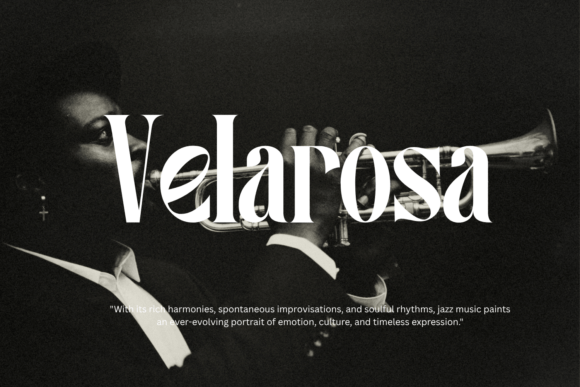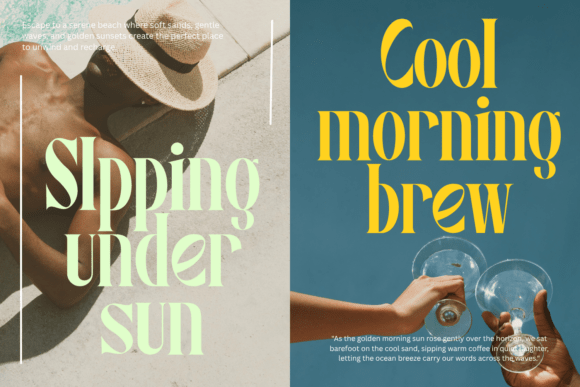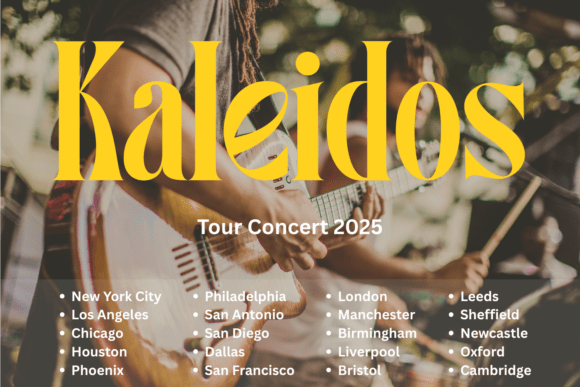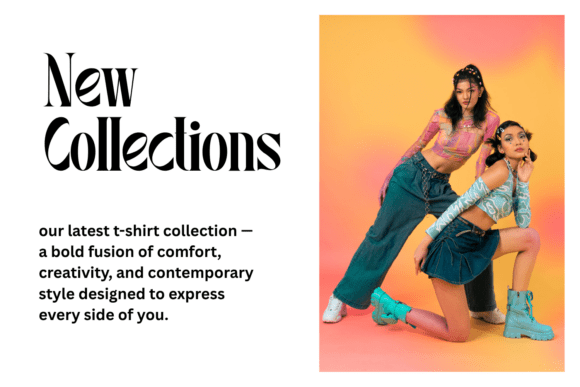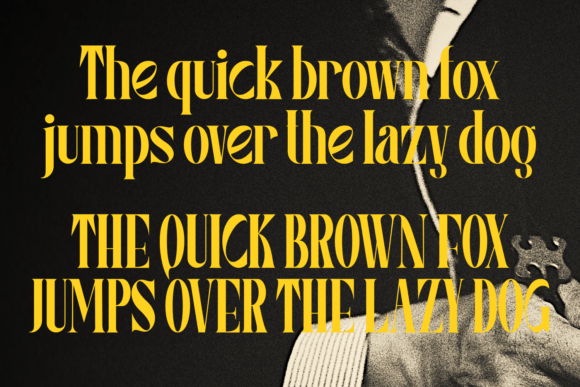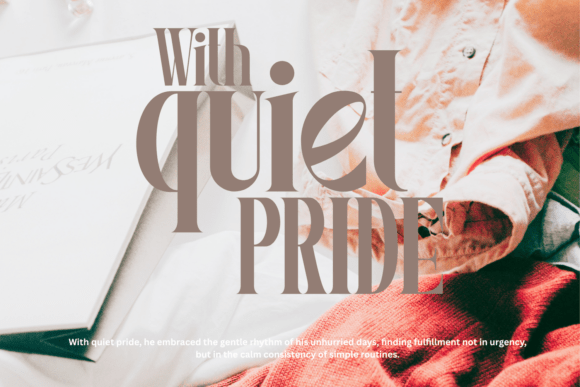
I still remember the frustration of working on a high-end branding project, only to hit a roadblock: finding the perfect font. My client wanted something luxurious, elegant, and sophisticated, but everything I tried seemed to fall flat. That was until I stumbled upon Diyas Font, a stylish and modern serif display font that completely transformed my design. In this article, I’ll share my experience with Diyas, its features, and how to make the most of this beautiful typeface.
First Impressions: What I Love About Diyas Font
From the moment I opened Diyas Font, I knew I had found something special. Here are a few things that immediately caught my attention:
- ✨ **Clean lines and beautiful curves**: Diyas has a sleek, refined aesthetic that’s perfect for high-end designs.
- ✅ **Creative ligatures**: The font’s unique ligatures add an extra layer of sophistication and elegance.
- 💡 **Versatility**: Diyas works beautifully for branding, logos, invitations, packaging, fashion editorials, and more.
The Honest Review: Not Perfect, But Close
While Diyas Font is an exceptional typeface, it’s not without its quirks. Here are a few things to keep in mind:
- 🤔 **Limited use in body text**: Diyas is designed for display use, so it’s best used in headlines, titles, and short paragraphs.
- ⚠️ **Some characters may require manual kerning**: While the font is well-spaced, some character combinations may require manual adjustment for optimal results.
The Story Behind Diyas Font
Diyas Font was designed with the intention of creating a luxurious, high-end typeface that would meet the demands of modern designers. Inspired by classic serif fonts, Diyas brings a fresh perspective to the world of typography. The designer’s goal was to craft a font that would add a touch of sophistication and elegance to any design project.
| Font Name | Diyas Font |
| Author | Koplexs Studio |
Here are some common questions about Diyas Font:
- Q: Is Diyas Font suitable for body text?
- A: No, Diyas Font is designed for display use and is best suited for headlines, titles, and short paragraphs.
- Q: Does Diyas Font support OpenType features?
- A: Yes, Diyas Font supports OpenType features, including ligatures, stylistic alternates, and more.